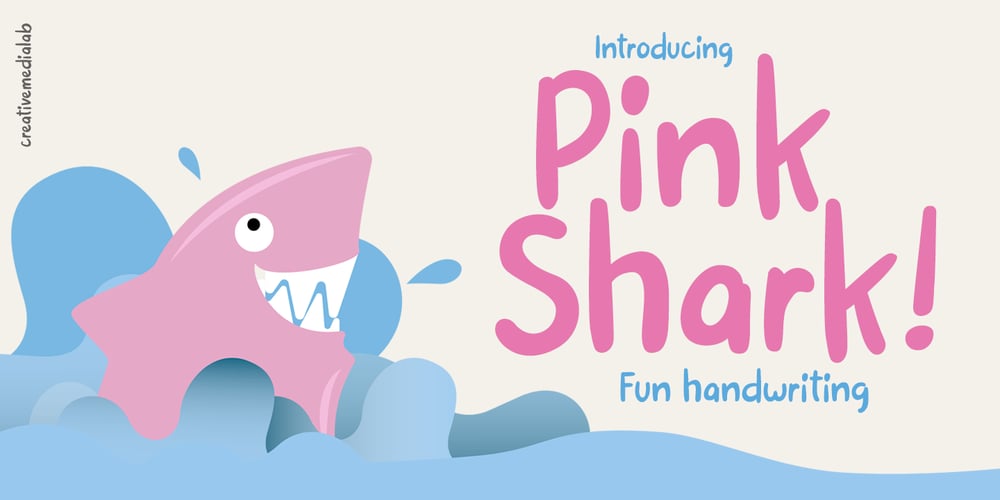
Pink Shark Font Family was designed by Kadek Mahardika and published by Creativemedialab. Pink Shark contains 1 styles and family package options. Introducing Pink Shark, a fun and simple handwriting fonts. Perfect for DIY projects, labels, quotes, greeting cards, posters, wall art, branding, packaging, websites, photography overlays, window art, signs, scrap booking, tags and so more! Pink Shark consists of a Regular and a cute ‘Wrap’ version and will make your project stand out!